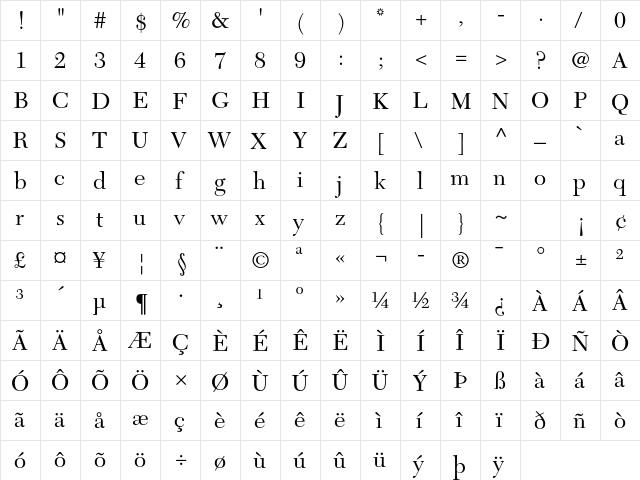
New Caledonia LT Std Regular
| Designer | William A. Dwiggins |
Design Context for New Caledonia LT Std Typeface
New Caledonia LT Std is a composed and adaptable typeface that performs quietly and consistently across a wide range of design contexts. Its slender proportions lend an understated elegance to any composition.